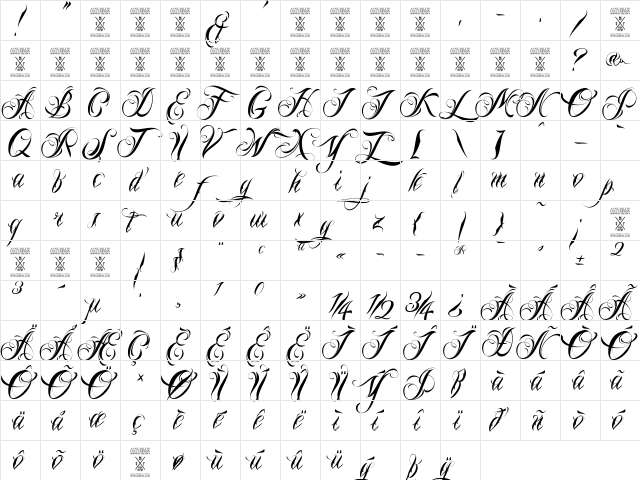
Nina Script Demo Regular
| Foundry | VMF (Vicky Mardian Font) |
| Designer | Vicky Mardian |
Design Context for Nina Script Demo Typeface
Nina Script Demo brings a calligraphic fluidity to the page — its connecting strokes and expressive curves give it an unmistakably human quality.